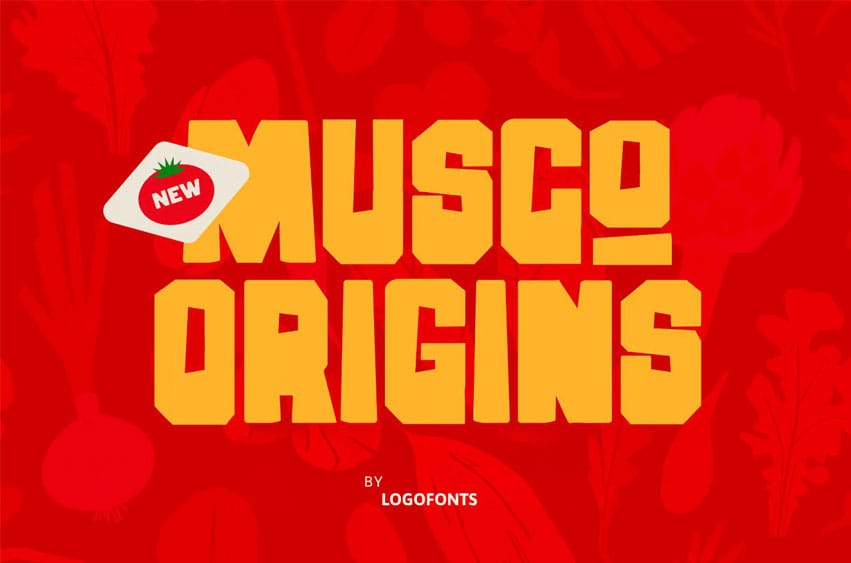
Musco Origins Font is a bold, blocky display font made to stand out in the food and restaurant scene. Its geometric yet playful look fits perfectly for burger, pizza, or candy brands that want to grab attention with confidence and warmth. The thick letterforms make it ideal for menu titles, coffee packaging, and kitchen products.
Built for fun and flavor, MUSCO ORIGINS embodies the energy of street food and the creativity of modern cooking culture. Whether you’re branding a bakery, launching a chocolate café, or crafting a new brand identity, this font delivers a taste of bold originality.